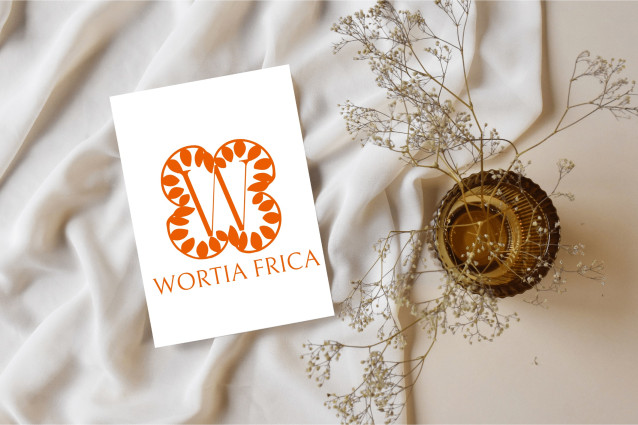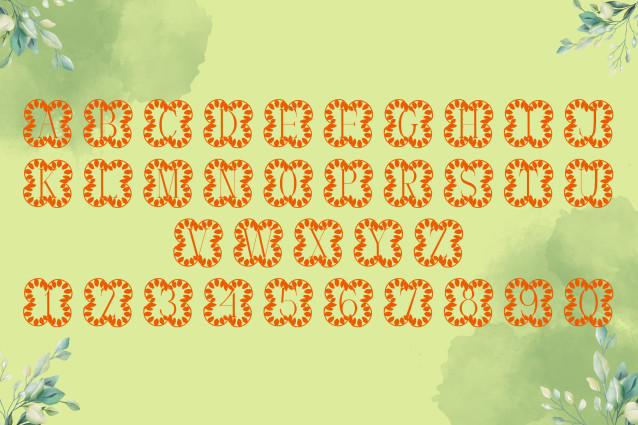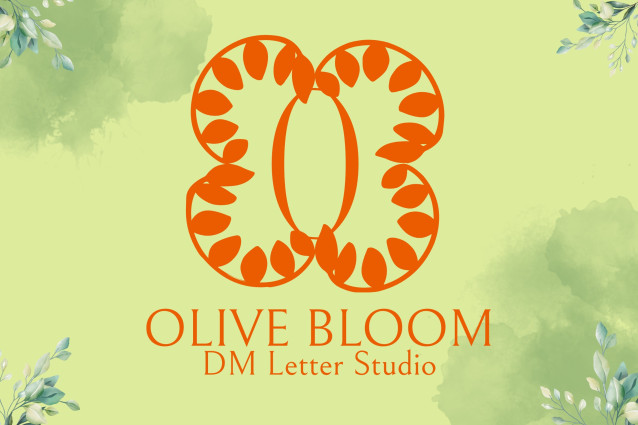
Olive Bloom Monogram Font
Olive Bloom Monogram Font is a refined serif monogram font inspired by the natural beauty and symbolism of olive branches. Each uppercase letter is thoughtfully adorned with elegant botanical illustrations, creating a harmonious blend of tradition, nature, and artistry. Ideal for weddings, premium branding, and personalized gifts, this font adds timeless charm to any monogram-focused design.